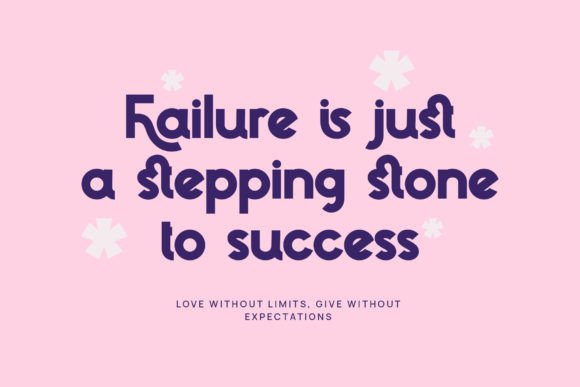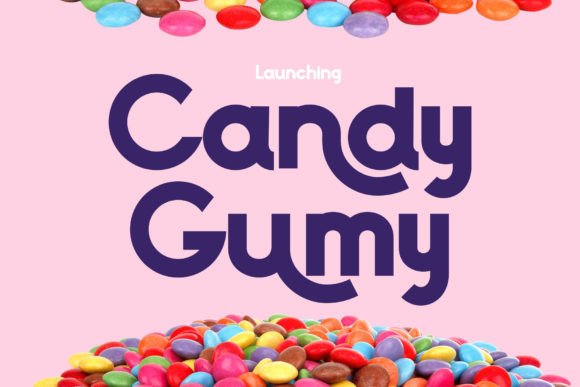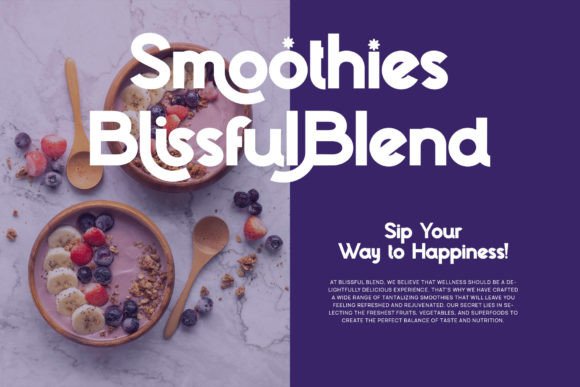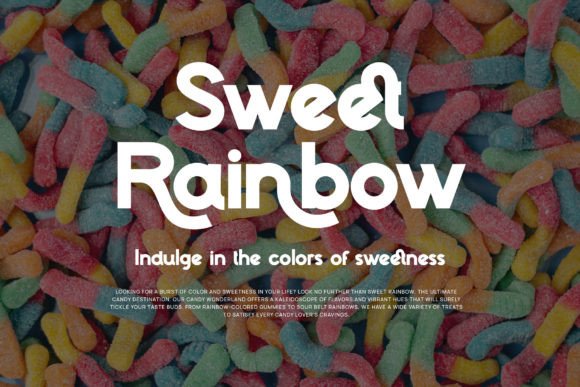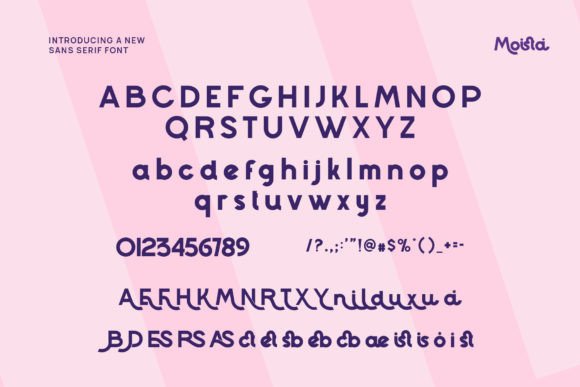
Introduction to Moista Font
Moista is a modern and trendy sans-serif typeface exuding contemporary flair.
Its clean lines and balanced proportions give it a sleek and sophisticated appearance suitable for various design purposes With its versatility and legibility, Moista adds a touch of elegance to any project or branding endeavor.